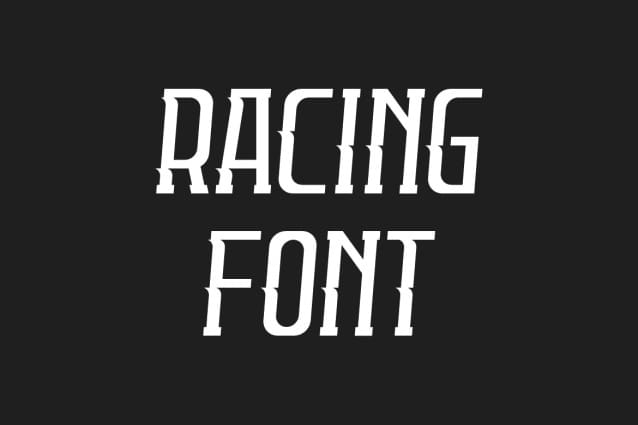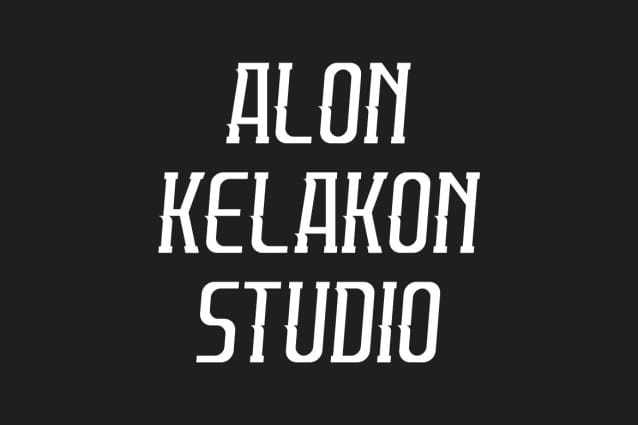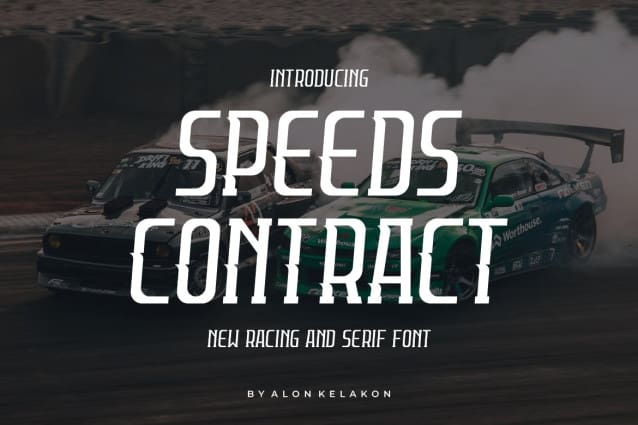
Speeds Contract Font
Speeds Contract Font is unique . Ready to use for your design like labeling, movie sceen, poster, movie title, gigs, album covers, logos, and much more.